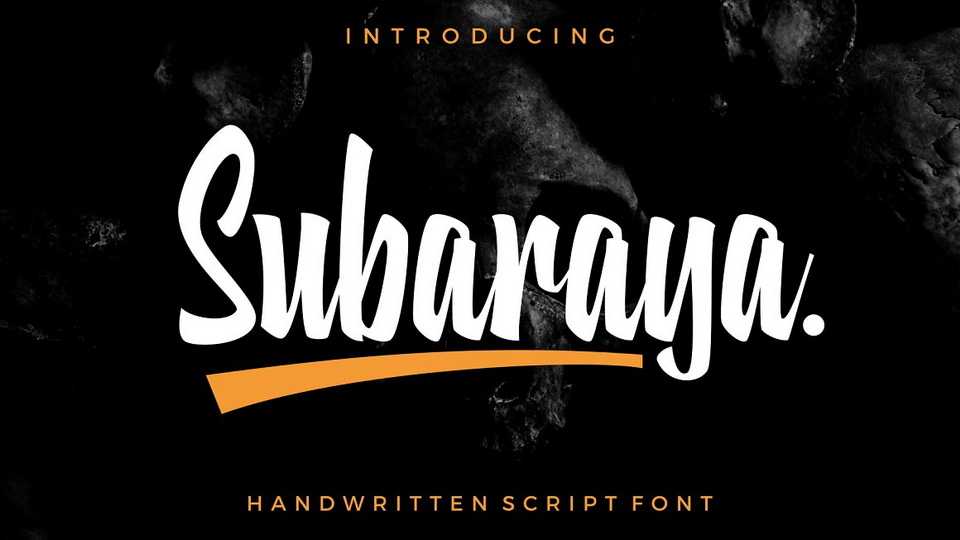
Download Subaraya font, a bold hand lettered script typeface with a that give a masculine touch to your designs. Subaraya is perfect for logotype, headline, printed designs on t-shirts and other artworks.